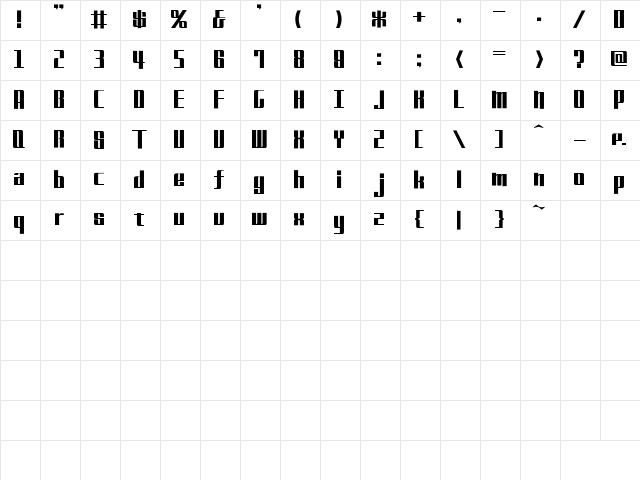
Complete NiseThunderBlade Regular glyph index. Displaying only characters natively supported by NiseThunderBlade Regular font.
NiseThunderBlade is a composed and adaptable typeface that performs quietly and consistently across a wide range of design contexts.